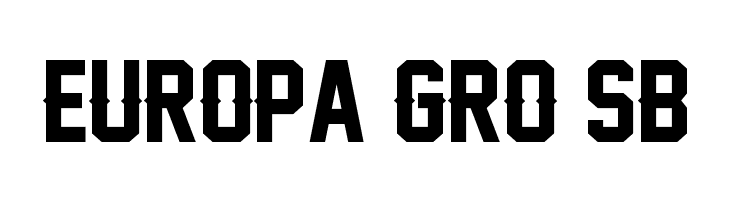
A bold, thorny decorative font with sharp, intricate details.
A dynamic and artistic font with swirling, fluid strokes and a calligraphic style.
A bold, textured font with a distressed, hand-drawn appearance.
A bold, distressed font with a grunge, urban aesthetic.
A bold, distressed 3D font with a rugged, dynamic style.
A bold, distressed font with a grunge texture, perfect for edgy designs.
A bold, decorative font with a perforated, industrial look.
An artistic and dynamic font with flowing, cursive-like strokes and bold, expressive characters.
A bold, doodle-style font filled with peace and love motifs.
A bold, decorative font with a distressed, grunge-like texture and ornate flourishes.
A bold, graffiti-inspired font with a rough, hand-drawn appearance.
A bold, 3D geometric font with a strong visual impact.
A bold, geometric font with thick, blocky characters for strong visual impact.
A bold, textured, hand-drawn style font with a playful and energetic vibe.
A dynamic, handwritten-style font with artistic flair.
A bold, distressed font with jagged edges and a grungy appearance.
A bold, distressed font with a grunge texture and uneven edges.
A bold, distressed font with a grunge texture and shadow effect.
A bold, angular font with a gothic-industrial style, perfect for impactful designs.
A bold, angular font with a shadow effect, perfect for edgy designs.
A bold, decorative font with a distressed, vintage gothic style.
A bold, distressed font with a rough, hand-painted style.
A bold, angular font with a modern, geometric style.
A bold, 3D decorative font with sharp serifs and high contrast.
A bold, impactful font with thick strokes and a modern, decorative style.